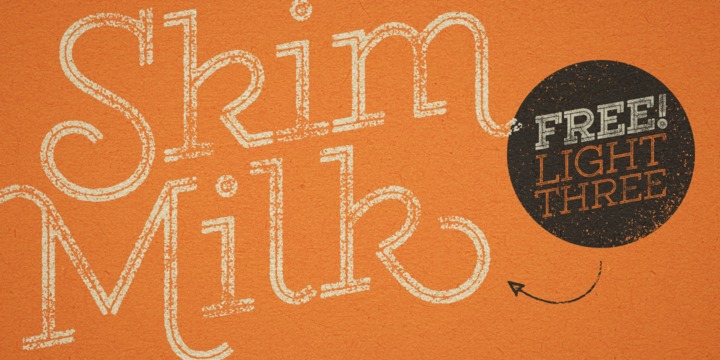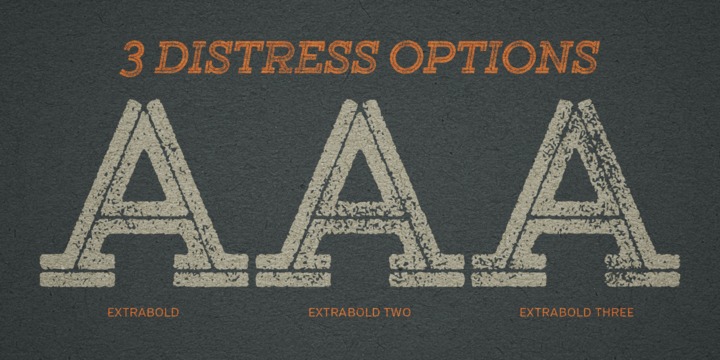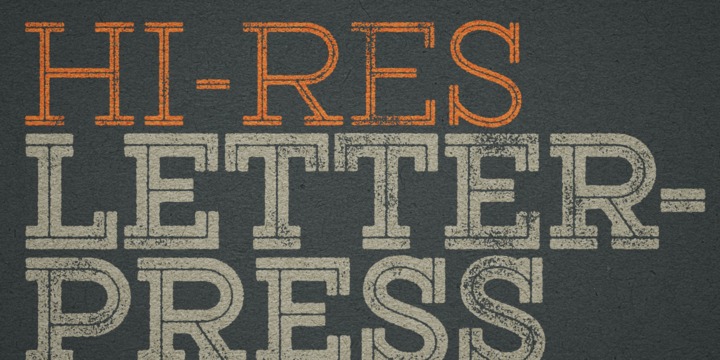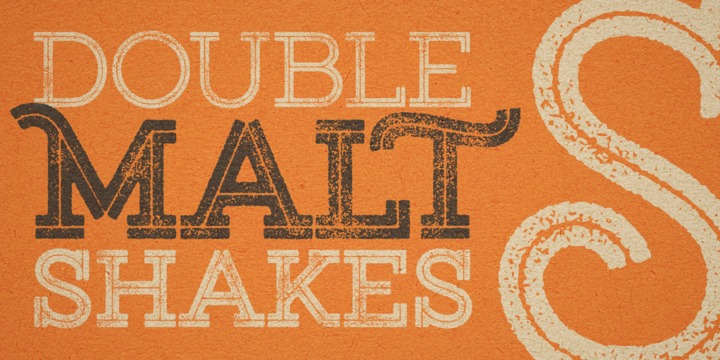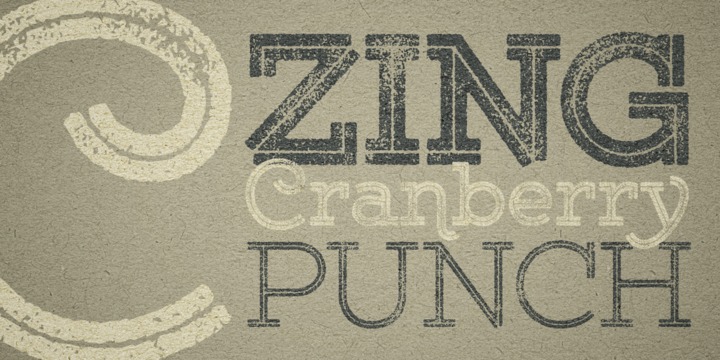
Gist Rough
Gist Rough from Yellow Design Studio is the letterpress version of Gist. It’s warm and weathered with a retro yet modern vibe. Every weight includes 3 versions with varying levels of texture which can be used individually or mixed to taste. It has highly detailed texture and looks great even at very large sizes.
With 627 glyphs per weight, Gist Rough is highly customizable